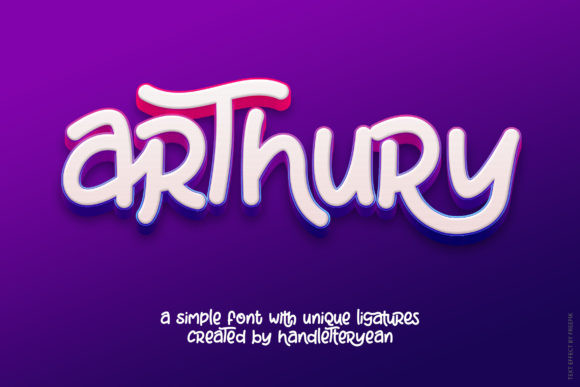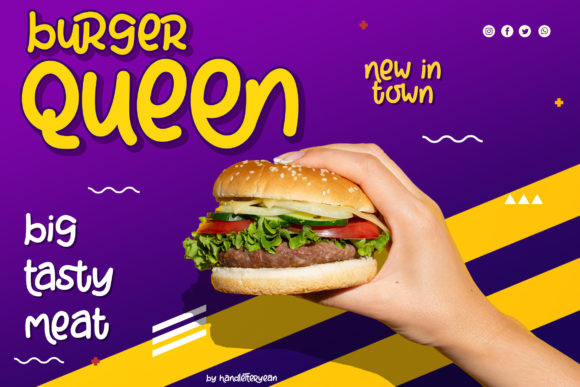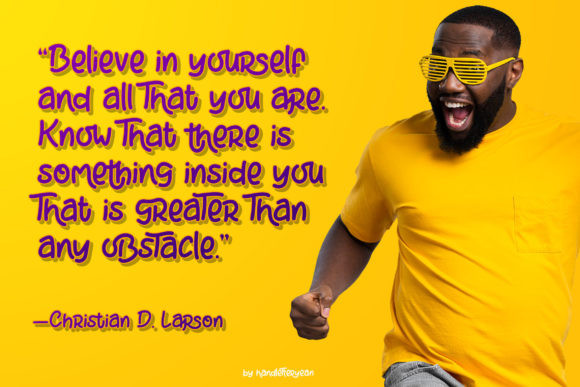
Arthury Font
Arthury is a fun display font with a friendly feel. It will elevate a wide range of design projects to the highest level, be it branding, headings, wedding designs, invitations, signatures, logos, labels, and much more!